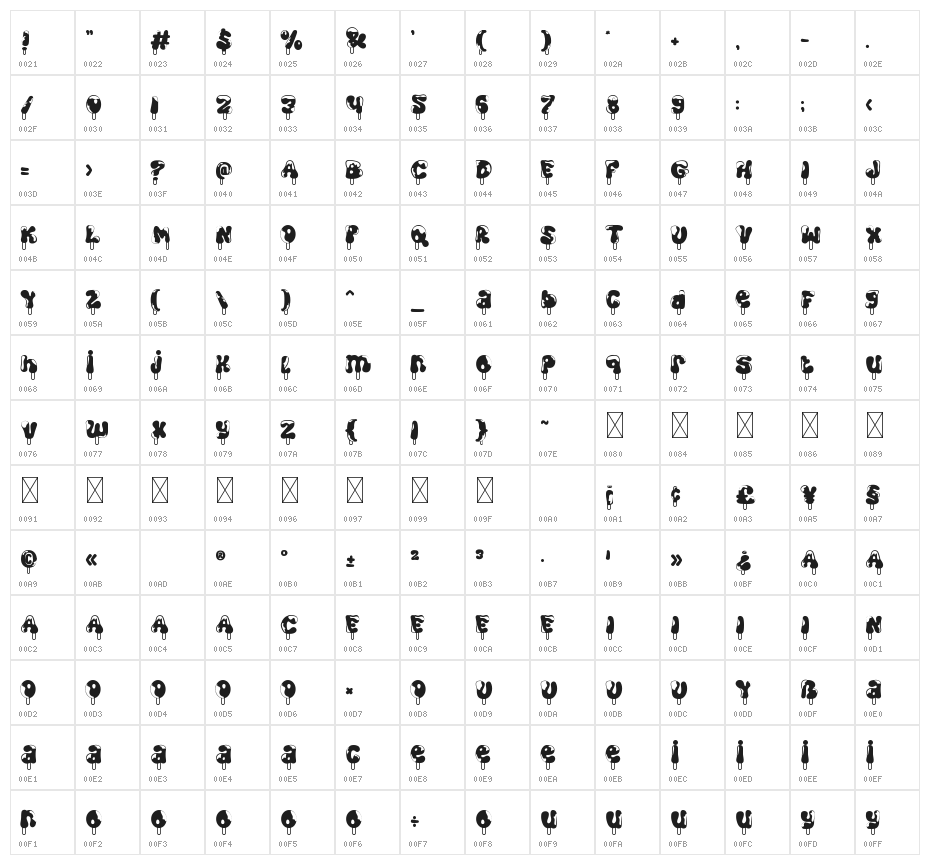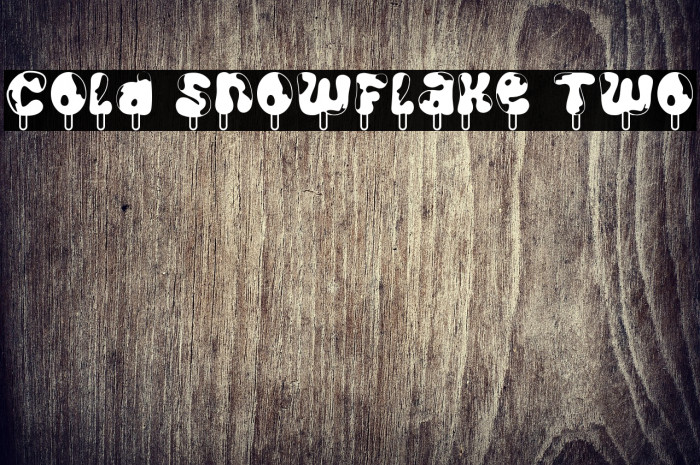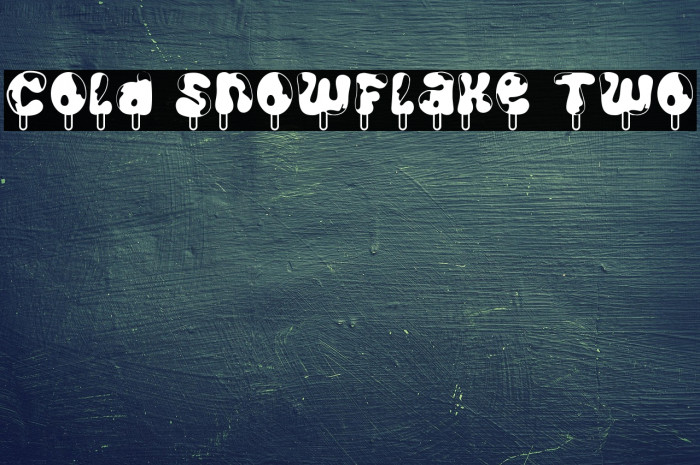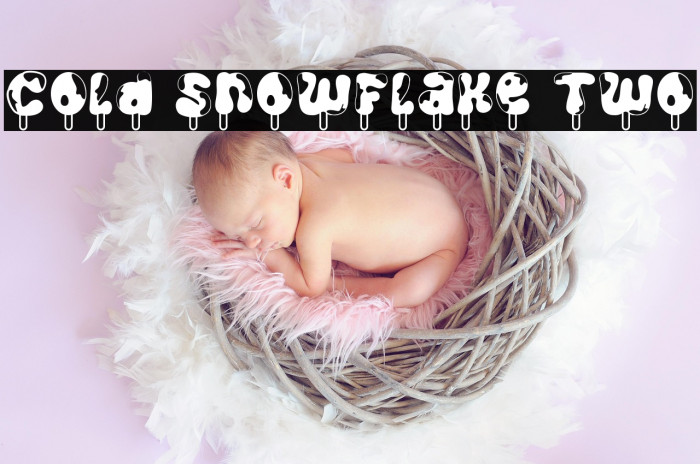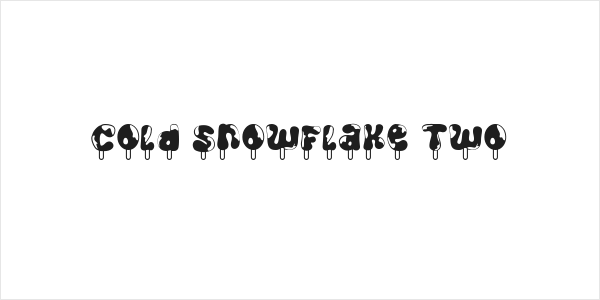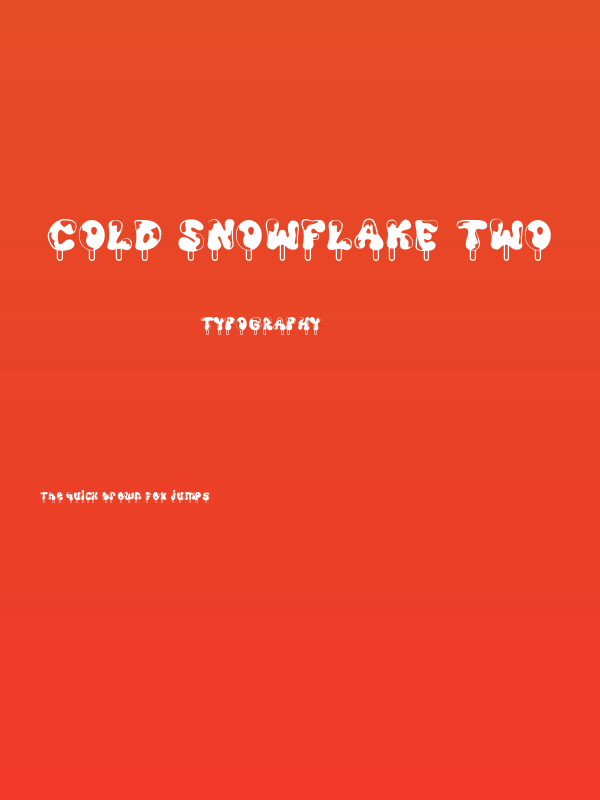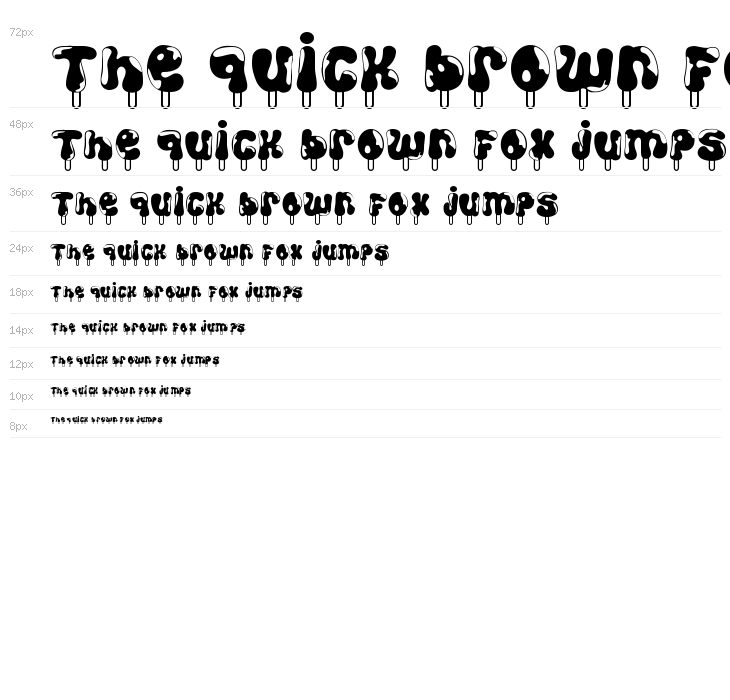
Cold Snowflake Two Font
Cold Snowflake Two Description
This playful and whimsical font features a unique design where each character appears to be melting or dripping, reminiscent of ice cream or snow. The letters are bold and rounded, with a distinct three-dimensional effect created by the dripping elements. The uppercase and lowercase letters maintain a consistent style, with the lowercase being slightly more compact. Numbers and special characters follow the same design principles, ensuring a cohesive look across all glyphs. The font's playful nature makes it ideal for projects that require a fun and eye-catching typeface.
| Overall Style | Playful, Whimsical |
| Proposed Projects | Ideal for children's book covers, ice cream shop branding, playful event invitations, or any project needing a fun and whimsical touch. |